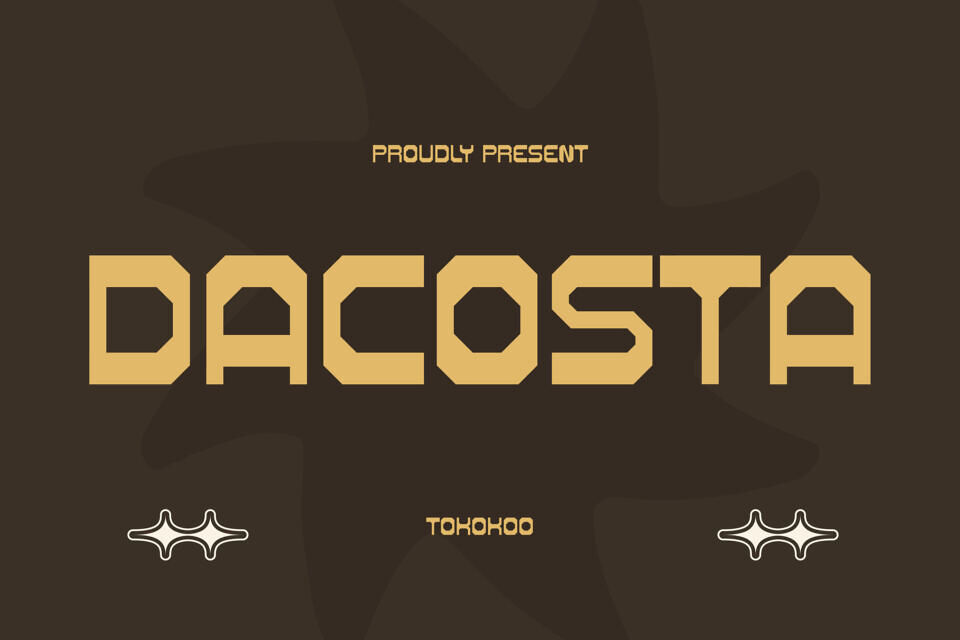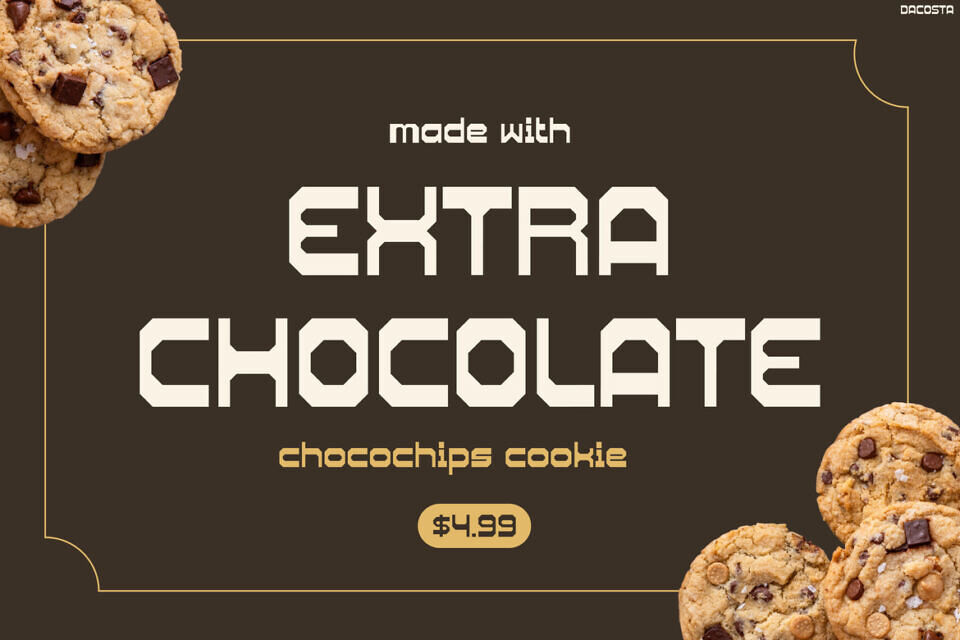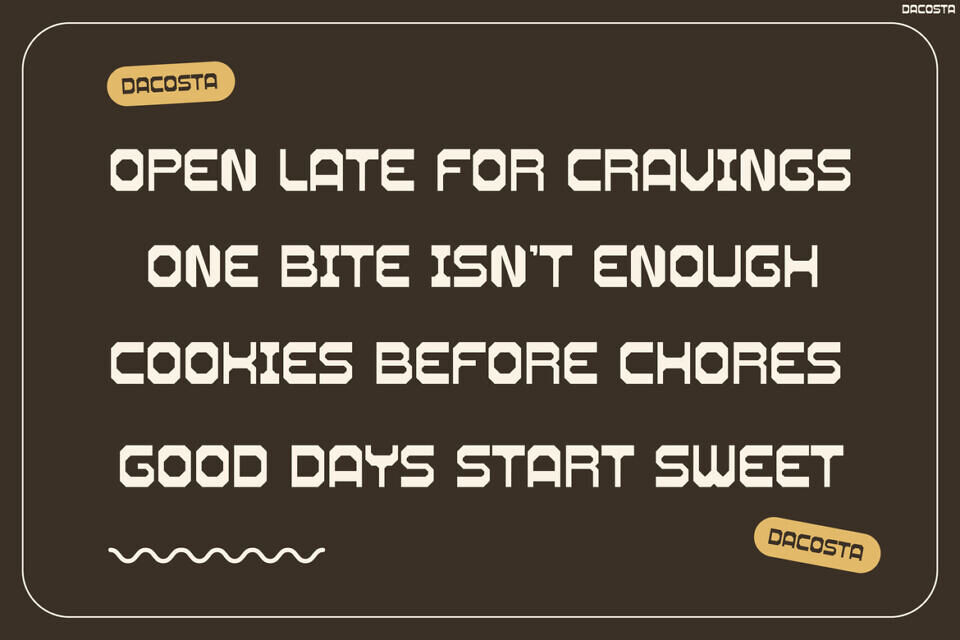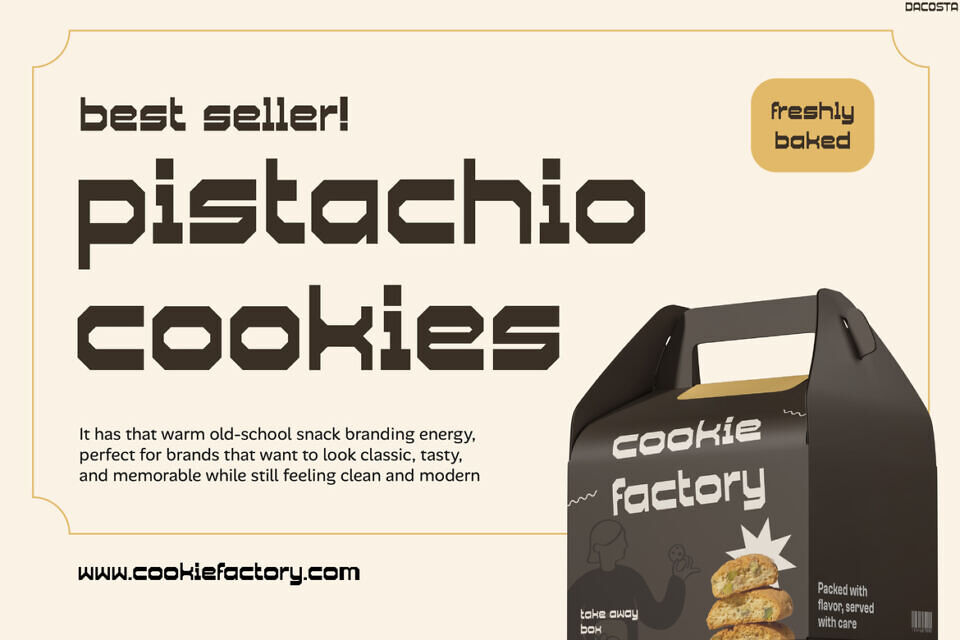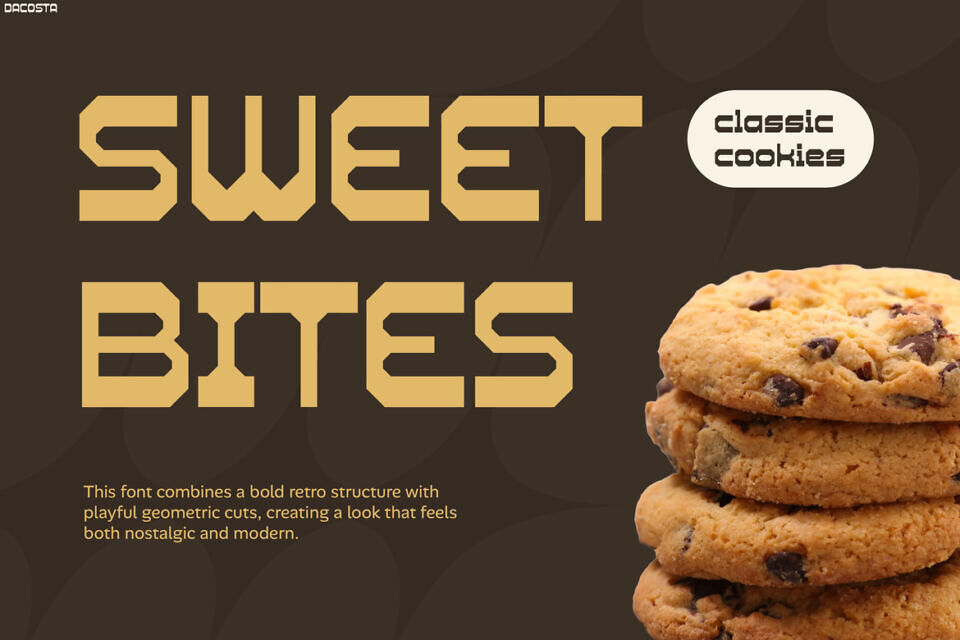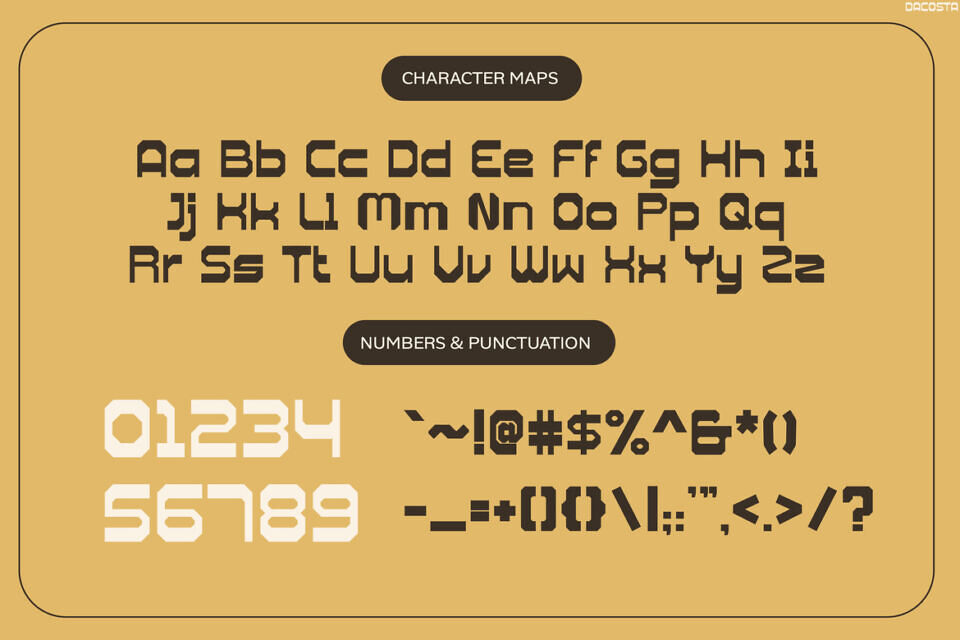
Dacosta Font
Dacosta is a futuristic display font that blends retro aesthetics with modern geometric precision. Inspired by vintage technology, cyber visuals, arcade culture, and bold packaging design, this font instantly creates a strong and stylish visual identity.
Dacosta features sharp corners, clean structures, and unique futuristic letterforms that make every word feel modern, bold, and highly distinctive. Unlike ordinary retro fonts, Dacosta combines nostalgic sci-fi energy with contemporary readability, making it both visually powerful and functional.